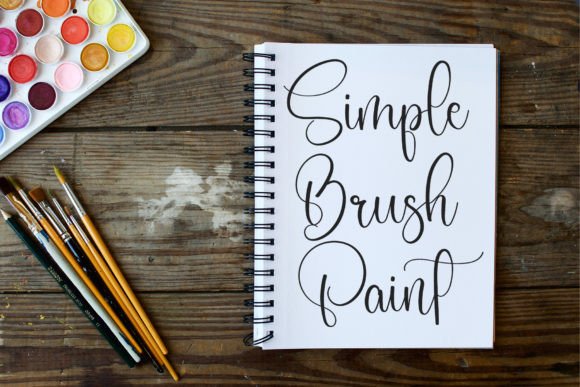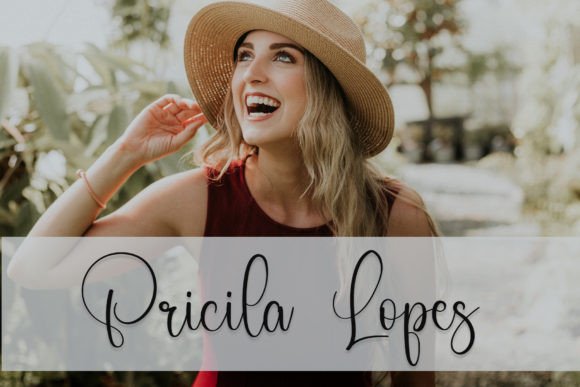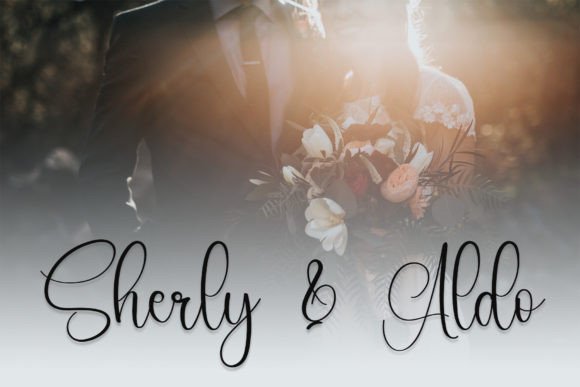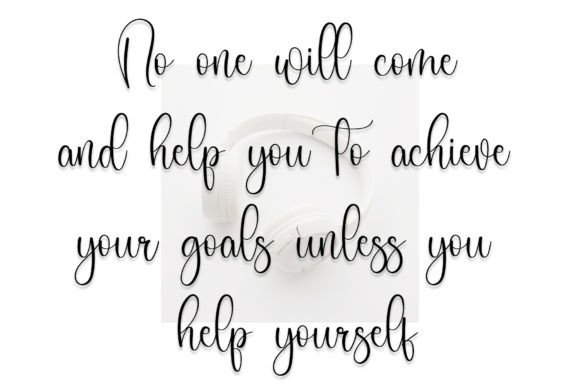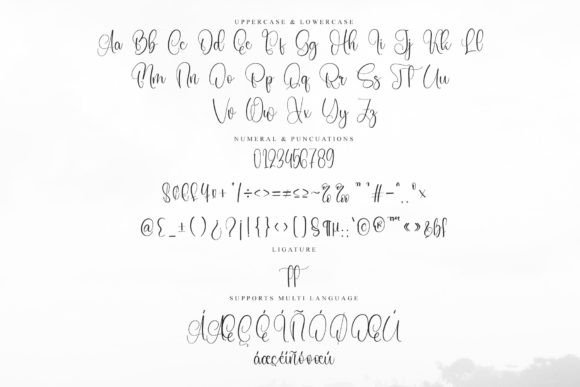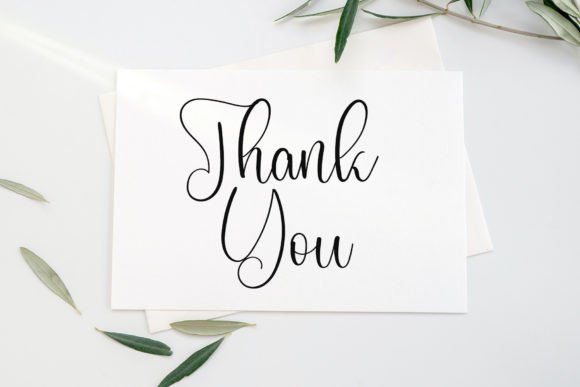
Introducing Advantage Font: Elevate Your Designs with Elegance
Are you a designer, crafter, or DIY enthusiast looking for a font that can add a touch of sophistication to your creative projects? Look no further than Advantage Font, a magical handwritten font designed to bring elegance and refinement to your designs. In this article, we’ll explore the features and benefits of Advantage Font, and how it can help you turn your creative ideas into stunning works of art.
What is Advantage Font?
Advantage Font is a carefully crafted handwritten font that exudes elegance and poise. Its unique, flowing script is perfect for adding a personal touch to your designs, whether you’re creating social media graphics, invitations, or DIY projects. With its beautiful, cursive letters, Advantage Font is sure to make your designs stand out from the crowd.
Features of Advantage Font
- Magical Handwritten Style: Advantage Font boasts a beautiful, handwritten style that’s perfect for creating elegant and sophisticated designs.
- Elegant and Refined: This font is designed to add a touch of refinement to your designs, making it perfect for projects that require a high level of sophistication.
- Versatile: Advantage Font can be used for a wide range of projects, from social media graphics to DIY crafts, invitations, and more.
- Easy to Read: Despite its elegant style, Advantage Font is easy to read, making it perfect for designs that require a clear and concise message.
Use Cases for Advantage Font
Advantage Font is perfect for a variety of design projects, including:
- Instagram Graphics: Add a touch of elegance to your Instagram posts and stories with Advantage Font.
- DIY Projects: Use Advantage Font to create beautiful, handmade cards, invitations, and other DIY crafts.
- Calligraphy Scripts: Advantage Font is perfect for creating stunning calligraphy scripts for special occasions, such as weddings, birthdays, and anniversaries.
- Branding and Marketing Materials: Use Advantage Font to create elegant and sophisticated branding and marketing materials, such as logos, brochures, and business cards.